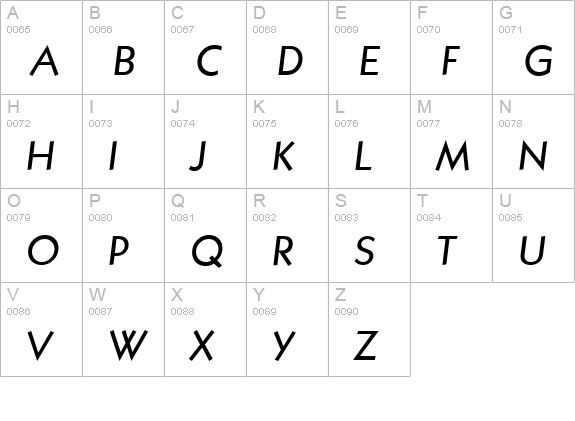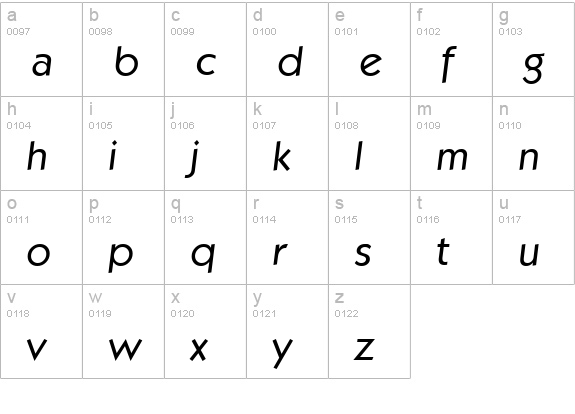
KoblenzSerial-Italic Font Details
KoblenzSerial-Italic is a distinctive, italic variant in the KoblenzSerial typeface family \xE2\x80\x94 well suited to design and typography projects.
KoblenzSerial-Italic font is a stunning display font that exudes elegance and sophistication. Its sleek and modern design makes it perfect for various design projects, from branding to editorial design. The italic style adds a touch of flair and uniqueness to any text or headline. The KoblenzSerial-Italic font is not only stylish but also highly readable, making it a versatile choice for both digital and print designs. Whether you're creating posters, logos, or invitations, this font will surely make your text stand out. The best part? KoblenzSerial-Italic font is completely free to download at FontsMarket.com. So go ahead and elevate your designs with this beautiful and free font today!